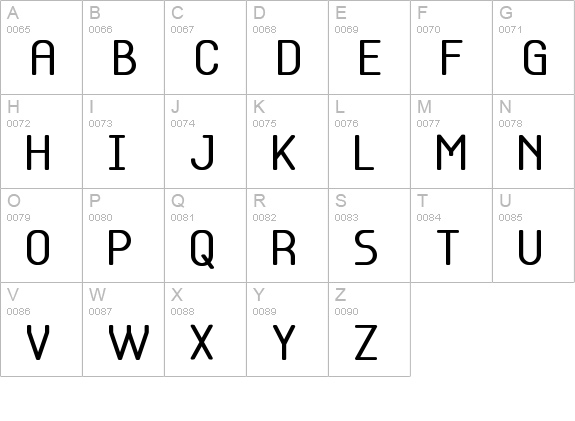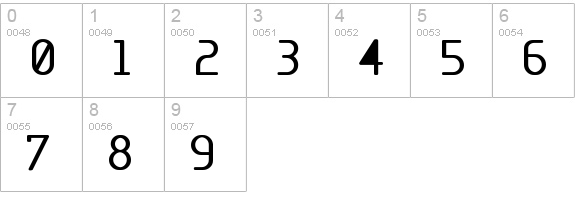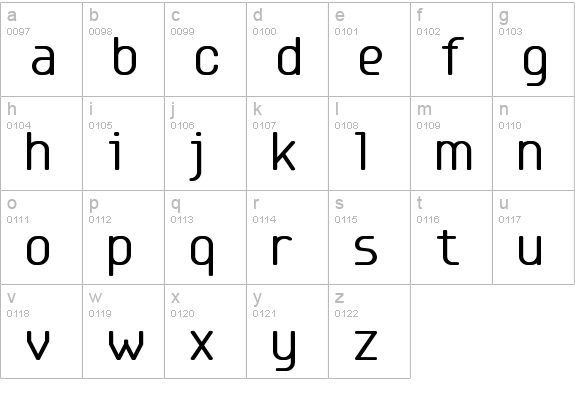
Introducing the captivating Base 5 font, a versatile typeface that brings a touch of modernity and uniqueness to your projects. With its sleek lines and geometric shapes, Base 5 is perfect for adding a contemporary flair to your designs. This font is not only visually appealing but also highly functional, making it suitable for a wide range of applications. What sets Base 5 apart is its ability to seamlessly blend into various design styles, be it for branding, advertising, or creative projects. The clean and minimalist aesthetic of Base 5 exudes sophistication and professionalism, making it a top choice for designers seeking a font that stands out from the crowd. And the best part? Base 5 is available for free download at FontsMarket.com! Now you can elevate your designs without breaking the bank, thanks to this high-quality font that is just a click away. Don't miss out on the opportunity to enhance your projects with the modern and stylish Base 5 font. Download it today and let your creativity soar!